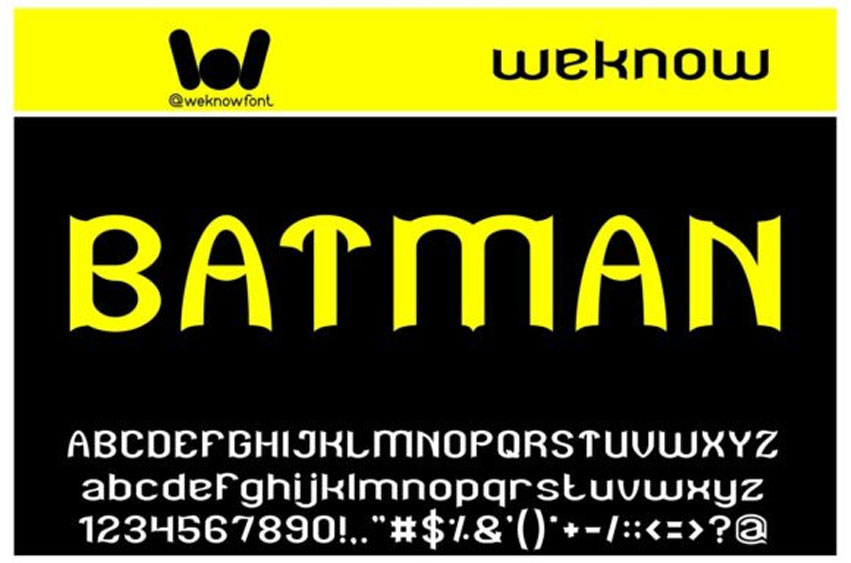
Batman Display Font
Batman Display Font is a fancy and bold-looking display font.
It is suitable for logos, headline font, in corporate identity, brand identity, apparel industry, poster, music, movie, game, magazine, book, comic, cartoon, YouTube, Instagram, website, or any of your creative design projects.